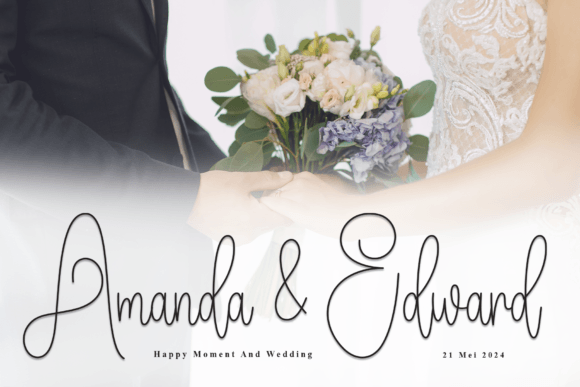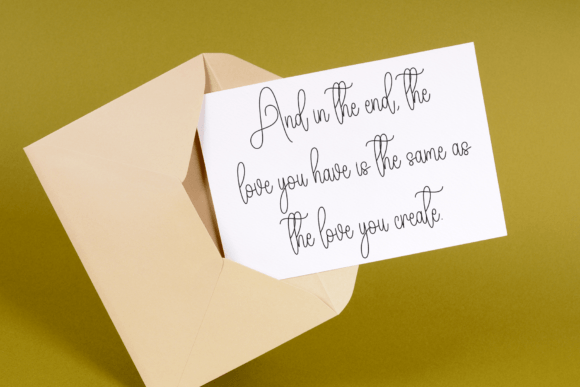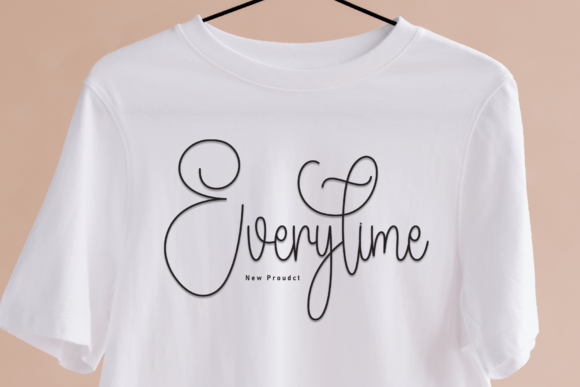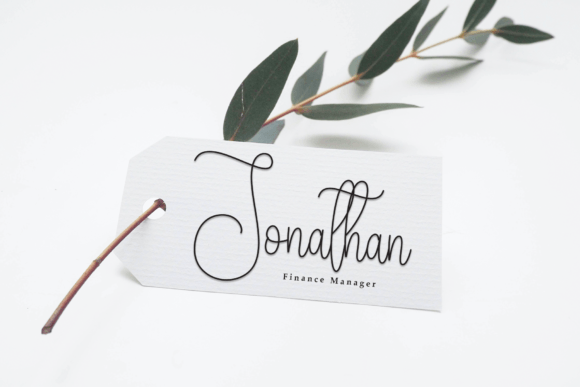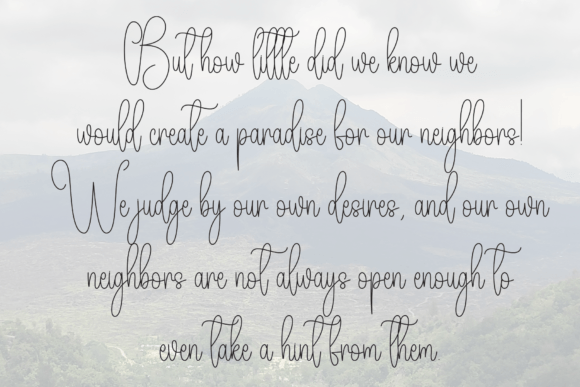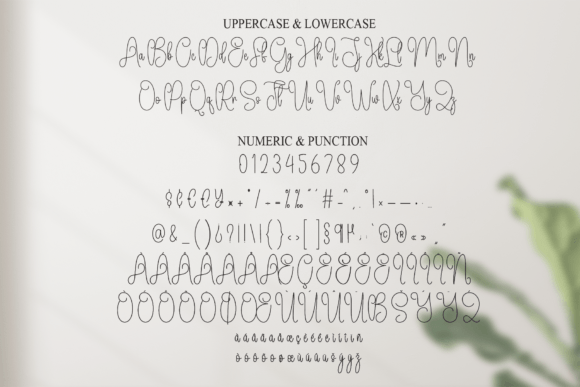
Introducing Background Font: Elevate Your Designs with Elegance and Personality
In the world of typography, a font can make all the difference in the aesthetic and tone of a design. For those seeking a modern, charming, and elegant handwritten font, Background Font is an exceptional choice. This beautiful font exudes sophistication and personality, making it perfect for upscale invitations, personal branding, and chic editorial designs.
The Characteristics of Background Font
Background Font boasts graceful, flowing strokes that give it a refined and luxurious feel. Its sophisticated character is designed to add a touch of elegance to any project, making it ideal for designers and crafters looking to elevate their work. The font’s modern and charming aesthetic ensures that it will stand out in any design, from wedding invitations to fashion editorials.
Perfect for Upscale Invitations and Personal Branding
When it comes to creating upscale invitations, a font can make or break the design. Background Font is specifically designed to add a level of sophistication and refinement to any invitation, making it perfect for weddings, galas, and other high-end events. Additionally, its elegant and charming aesthetic makes it an excellent choice for personal branding, allowing individuals to establish a unique and memorable visual identity.
Ideal for Chic Editorial Designs
Background Font is also well-suited for chic editorial designs, such as fashion magazines, blogs, and articles. Its modern and sophisticated character ensures that it will complement a wide range of editorial styles, from minimalist to luxurious. Whether you’re designing a feature spread or a headline, Background Font is sure to add a touch of elegance and refinement to your work.
Why Choose Background Font?
So why choose Background Font over other fonts? Here are just a few reasons:
- Elegance and sophistication: Background Font exudes refinement and luxury, making it perfect for high-end designs.
- Modern and charming: Its unique aesthetic ensures that it will stand out in any design.
- Versatility: Background Font is suitable for a wide range of design applications, from invitations to editorial designs.
- Easy to read: Despite its elegant and flowing strokes, Background Font remains easy to read, making it perfect for body text and headlines.
Tips for Using Background Font
To get the most out of Background Font, here are a few tips:
- Use it sparingly: Background Font is a statement font, so use it sparingly to add emphasis and elegance to your design.
- Experiment with font sizes: Background Font looks great in a variety of font sizes, from large headlines to smaller body text.
- Pair it with contrasting fonts: Background Font pairs well with contrasting fonts, such as bold sans-serifs or elegant serifs.
In conclusion, Background Font is a modern and charming handwritten font that exudes elegance and personality. Its refined allure and warmth make it perfect for upscale invitations, personal branding, and chic editorial designs. With its sophisticated character and flowing strokes, Background Font is sure to elevate your projects and add a touch of luxury to your designs.
Whether you’re a designer, crafter, or simply someone looking to add a touch of elegance to your work, Background Font is an excellent choice. So why not give it a try and see how it can elevate your designs?